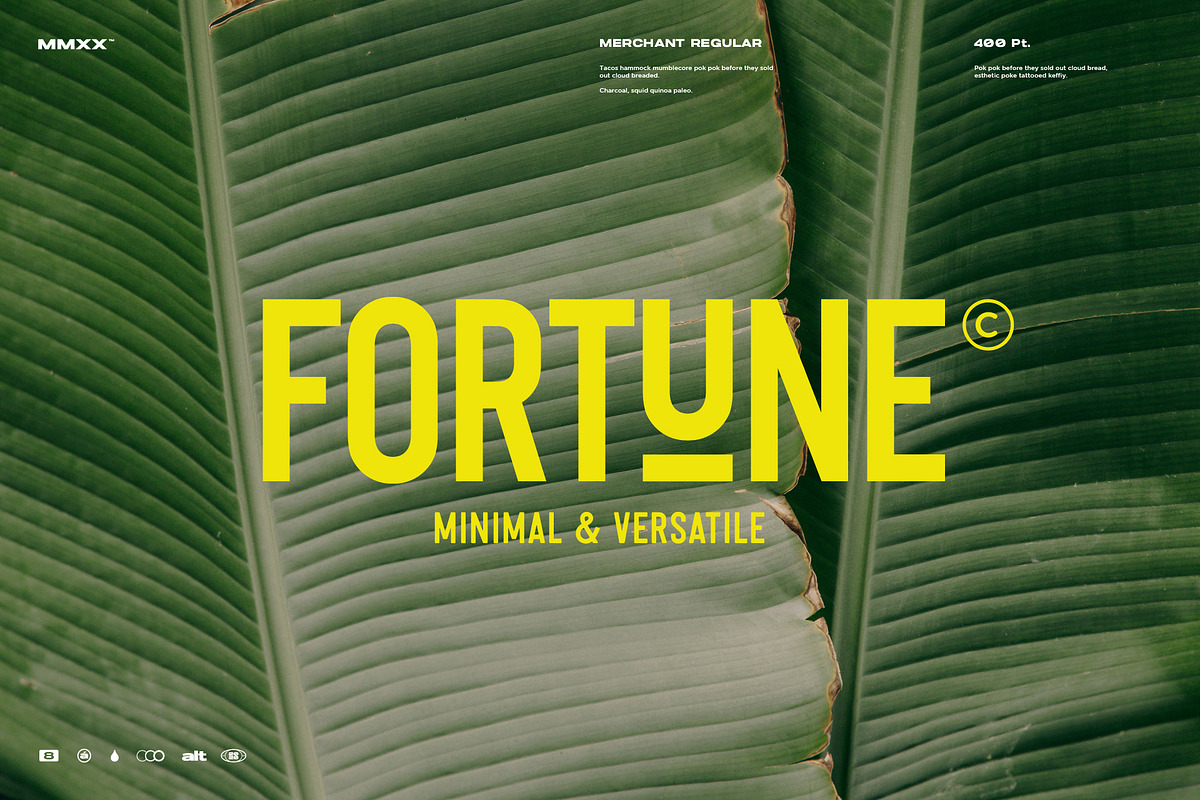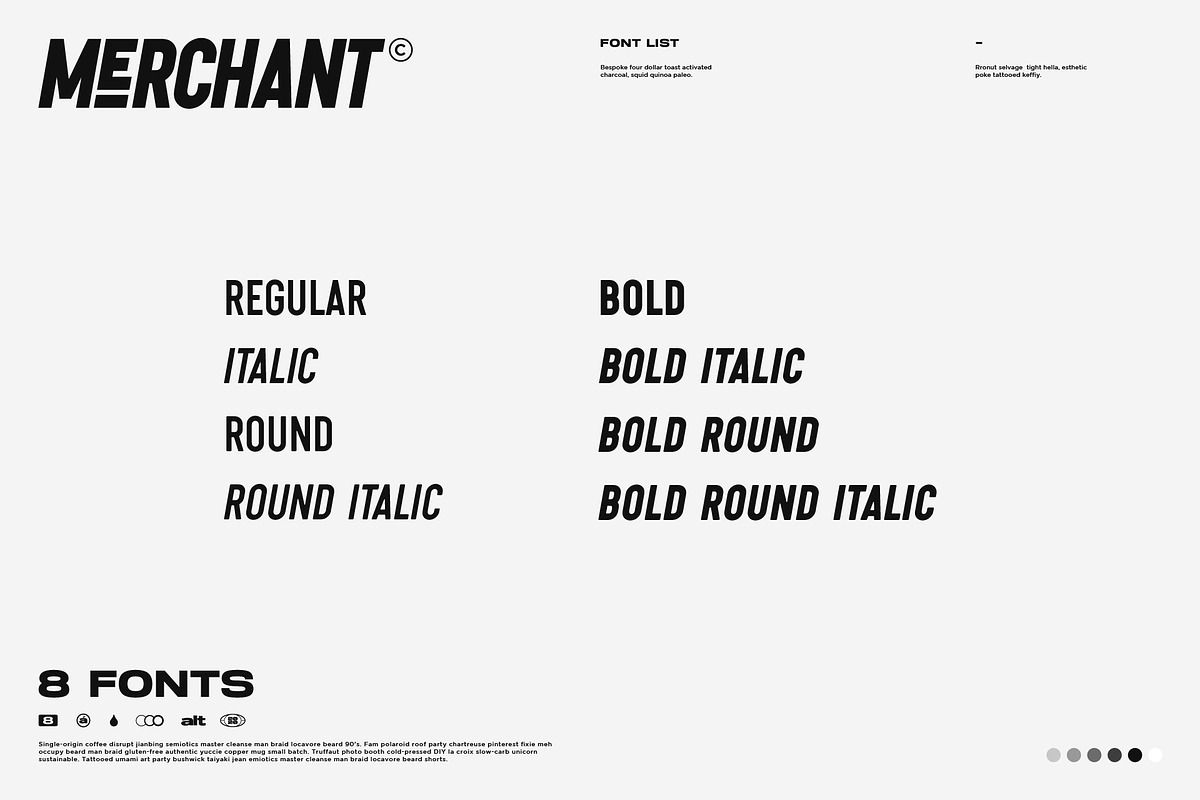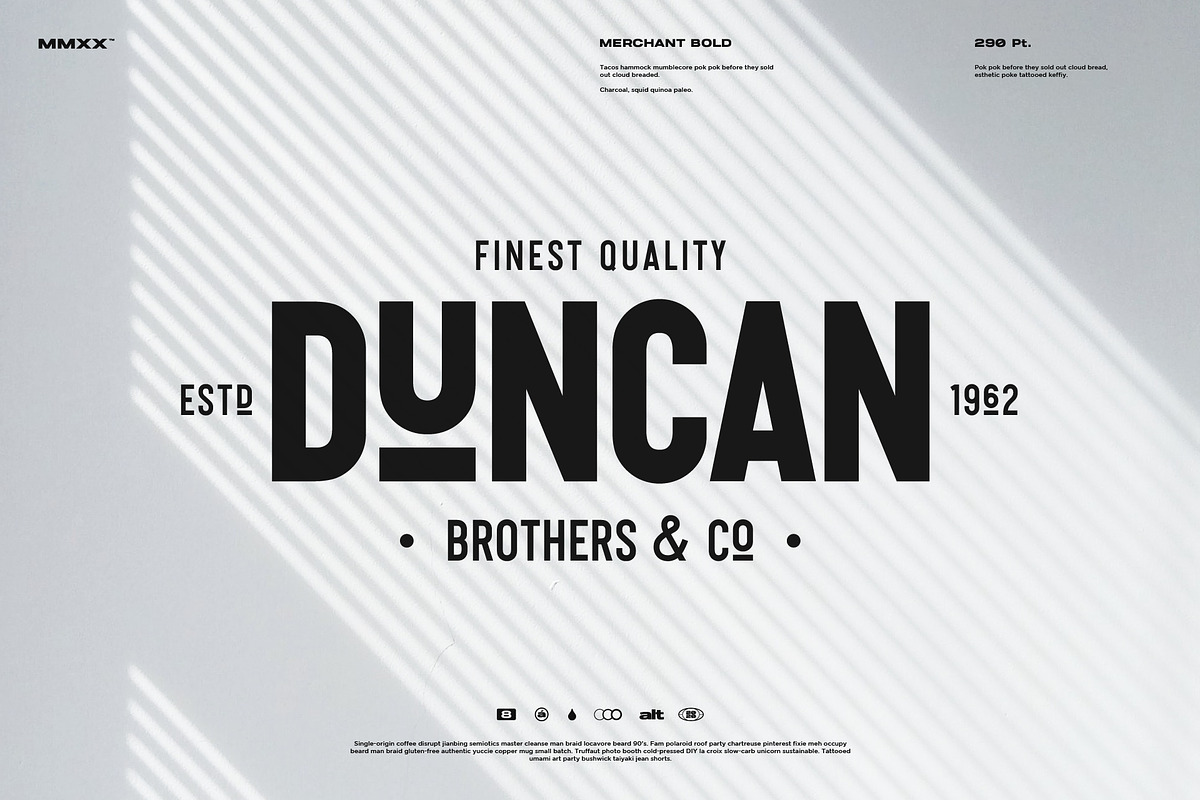
Merchant Font
Merchant is a condensed sans serif display typeface made up of 8 fonts in a variety of styles and weights. Included are over 500 stylized alternate glyphs for creative control and customization. It can be used to create anything as you wish, logos invitation cards, make scrapbooking, wedding cards, birthday cards, home decor, packaging holiday gifts, party decorations, print on fabrics and so much more.
• Over 500 Alternates